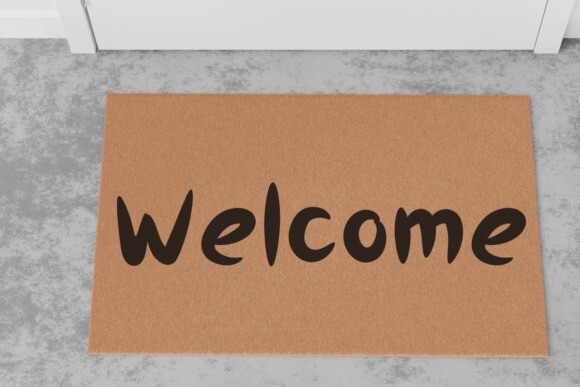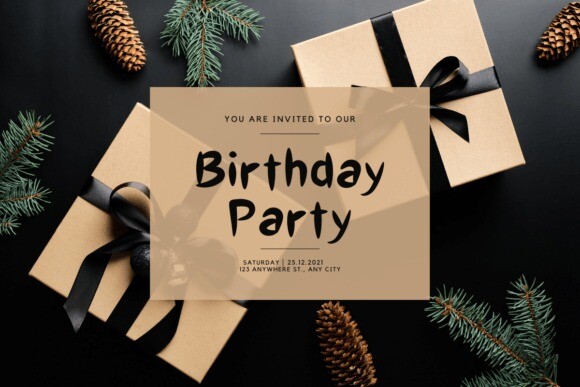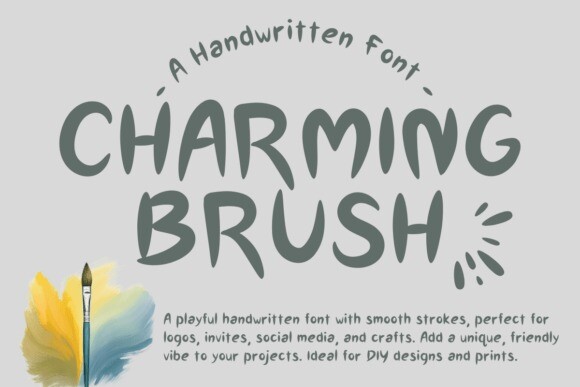
Charming Brush Font
Charming Brush Font is a bold Display handwritten font, perfect for digital note-taking. Its versatility makes it ideal for various projects such as Procreate designs, blog posts, logos, branding, digital planners, invitations, greeting cards, photo albums, and much more.